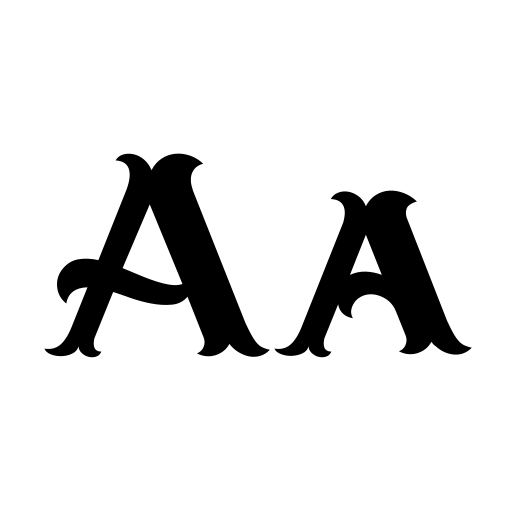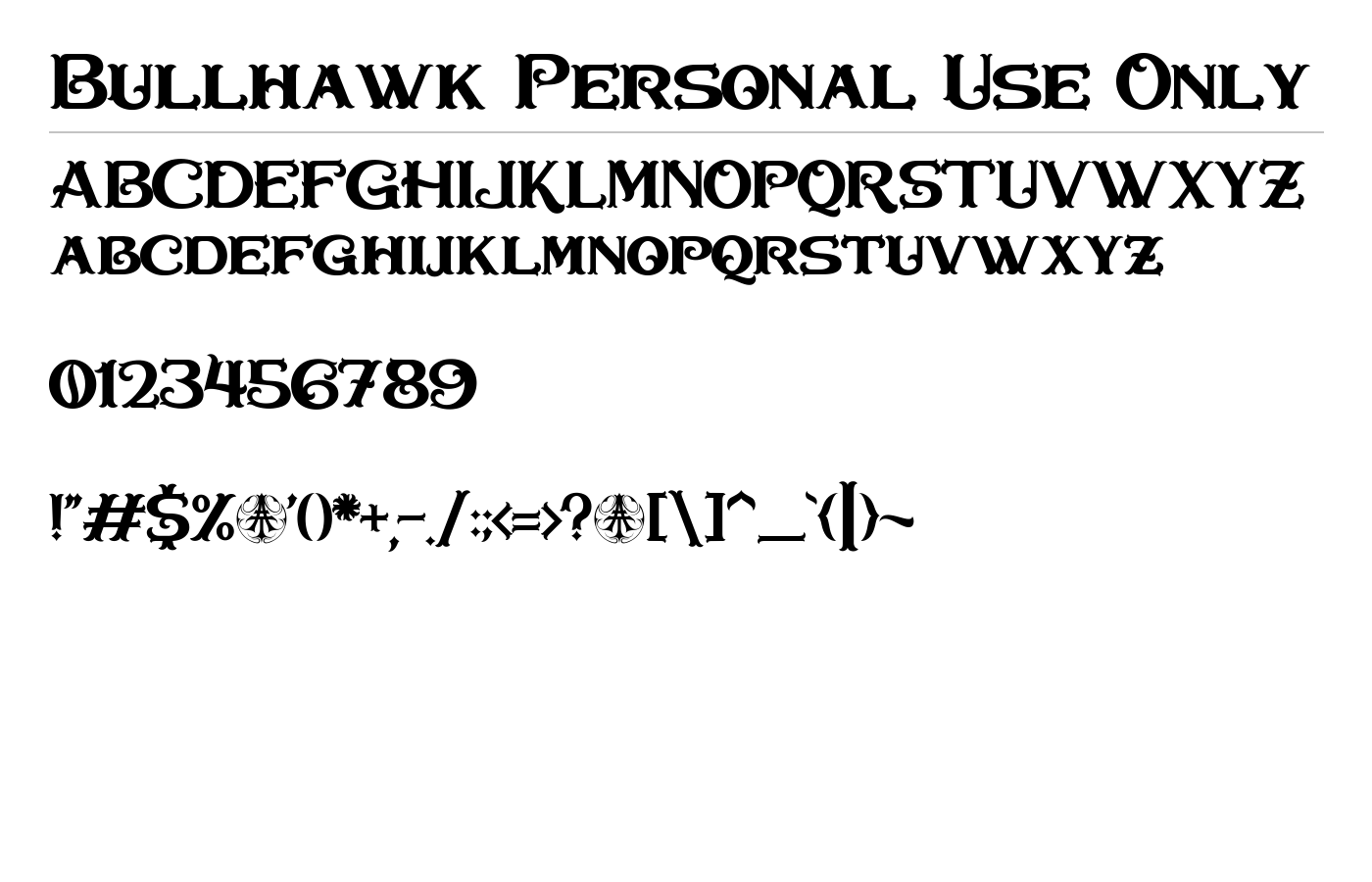
Bullhawk Personal Use Only is a bold serif typeface with a distinctive vintage flair, featuring high contrast and ornate details that give each letter a decorative, somewhat gothic appearance. Its sharp serifs, strong thick-and-thin stroke variation, and unique letter shapes make it ideal for eye-catching headlines, logos, or designs that need a strong personality with an old-world or western vibe. This font works best in contexts where a dramatic, stylish impact is desired, adding a sense of tradition and boldness.